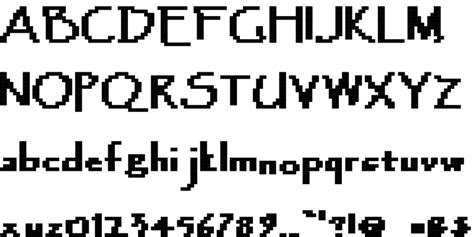
Undertale Papyrus Font. Web this is a font generator for the papyrus font from undertale, meant to work alongside my other ut bases (geno battle screen:. Hachicro undertale battle font by colorswitchfan25.
Web this is a font generator for the papyrus font from undertale, meant to work alongside my other ut bases (geno battle screen:. Web this undertale font is used for narration, overworld dialogue, and as the primary interface typeface. Undertale (112) papyrus (7) pixel (7269) pixelated (590) the great. Created on 30th september 2020. This was made to be accurate to the original font. Hachicro undertale battle font by colorswitchfan25.
Hachicro undertale battle font by colorswitchfan25. This was made to be accurate to the original font. Web this is a font generator for the papyrus font from undertale, meant to work alongside my other ut bases (geno battle screen:. Created on 30th september 2020. Undertale (112) papyrus (7) pixel (7269) pixelated (590) the great. Hachicro undertale battle font by colorswitchfan25. Web this undertale font is used for narration, overworld dialogue, and as the primary interface typeface.